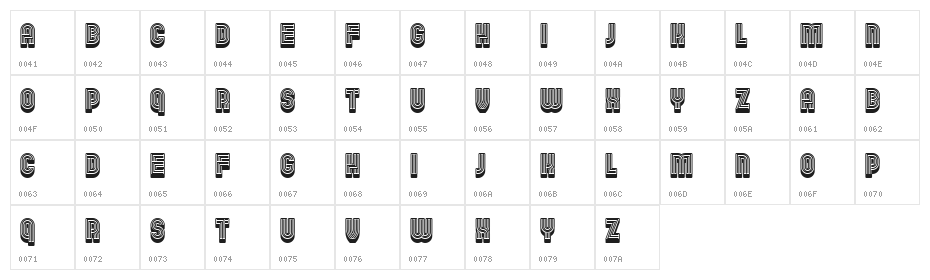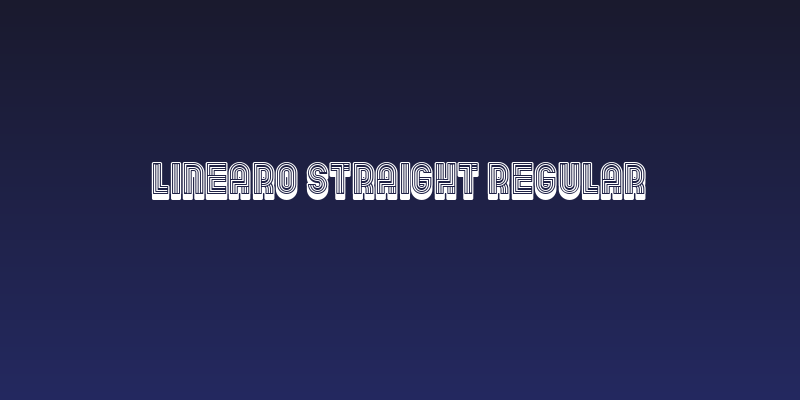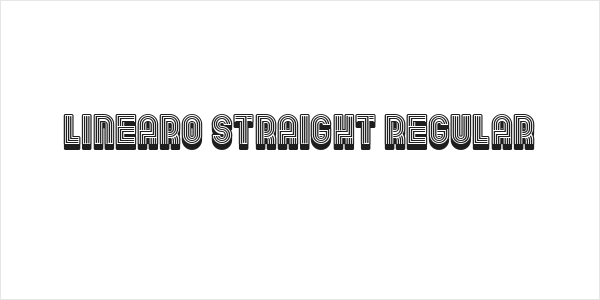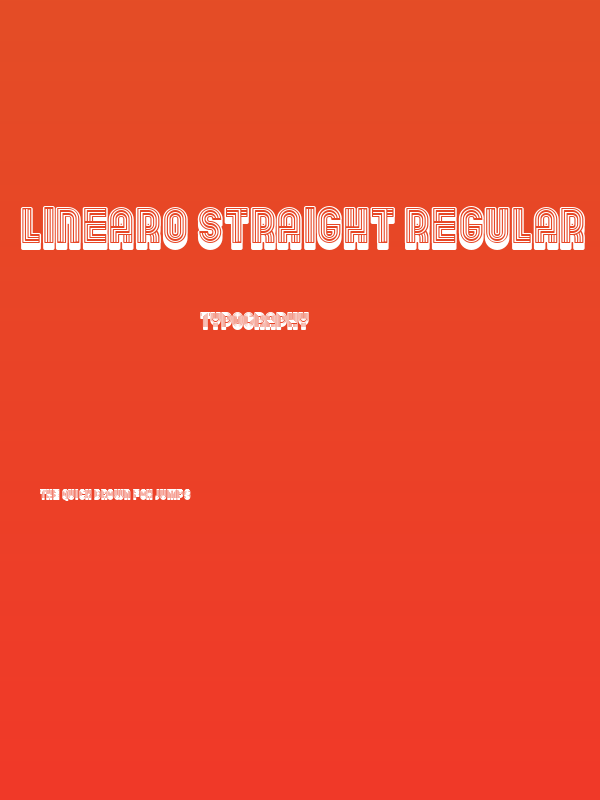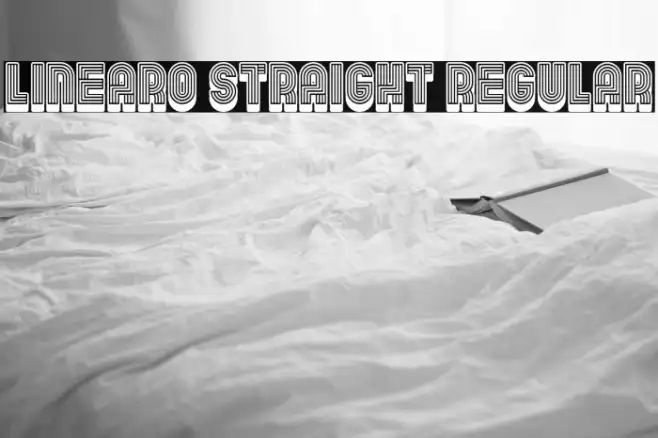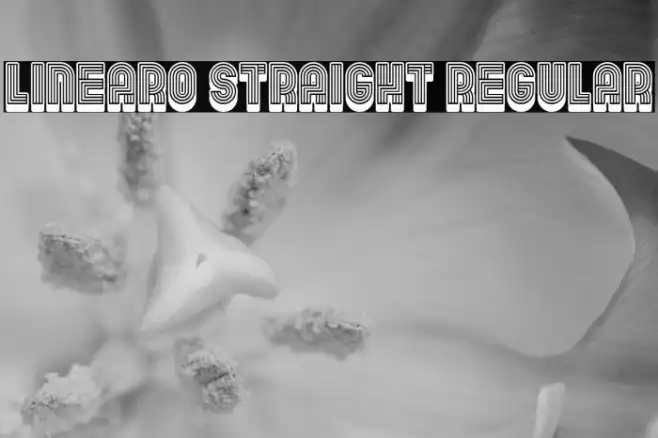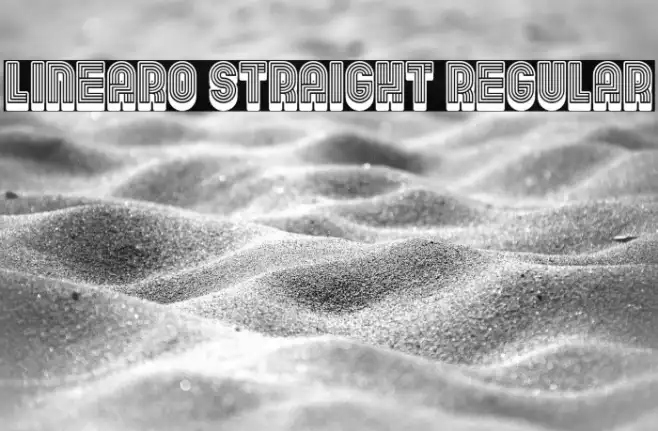
Linearo Straight Regular Font
Linearo Straight Regular Description
This font features a bold, geometric design with a distinct three-dimensional effect. Each character is constructed with multiple parallel lines, creating a layered appearance that adds depth and visual interest. The font maintains a consistent width across all characters, contributing to its uniform and structured look. Its boldness and unique style make it stand out, while the clear, straight lines ensure readability. The font is ideal for making a strong visual impact, suitable for various creative and display purposes.
| Proposed Projects | Ideal for posters, headlines, logos, and any project requiring a striking visual impact. |